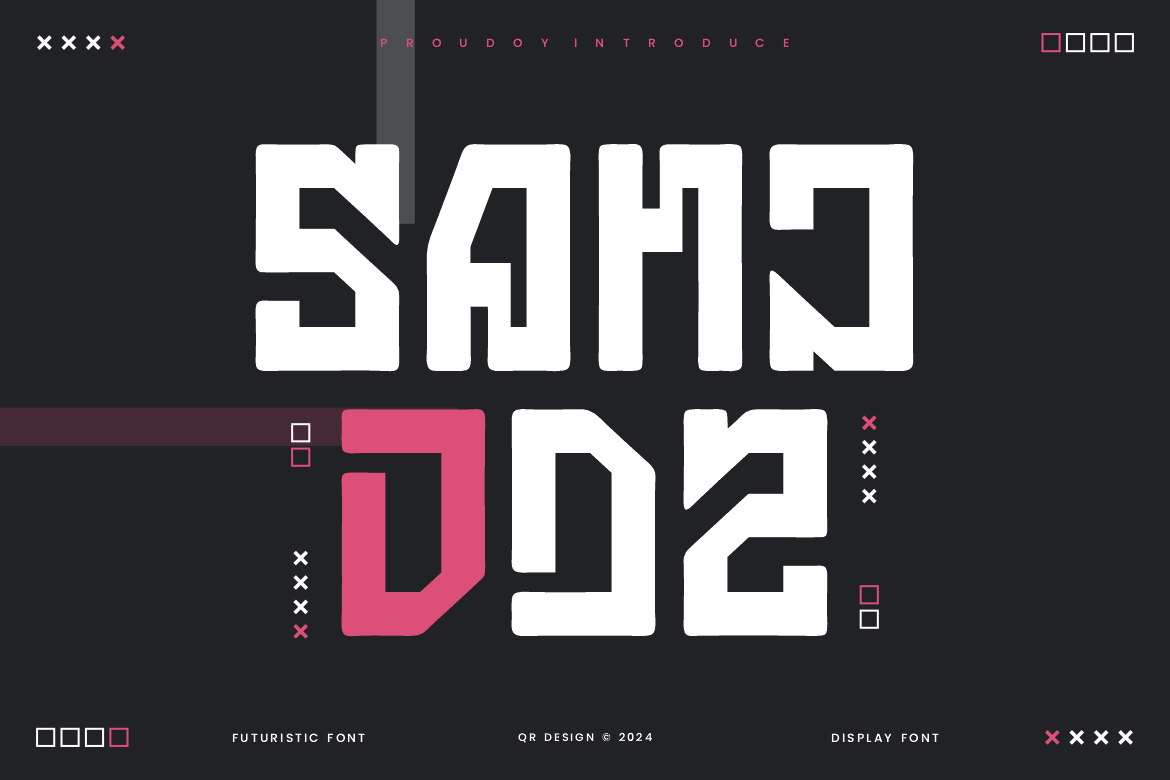
Sanjodz - Space & Futuristic Font
Sanjodz Font is a bold and authentic display font. The font is suitable for any branding project like poster, logo, sport, and many more. Outstanding in a wide range of contexts.